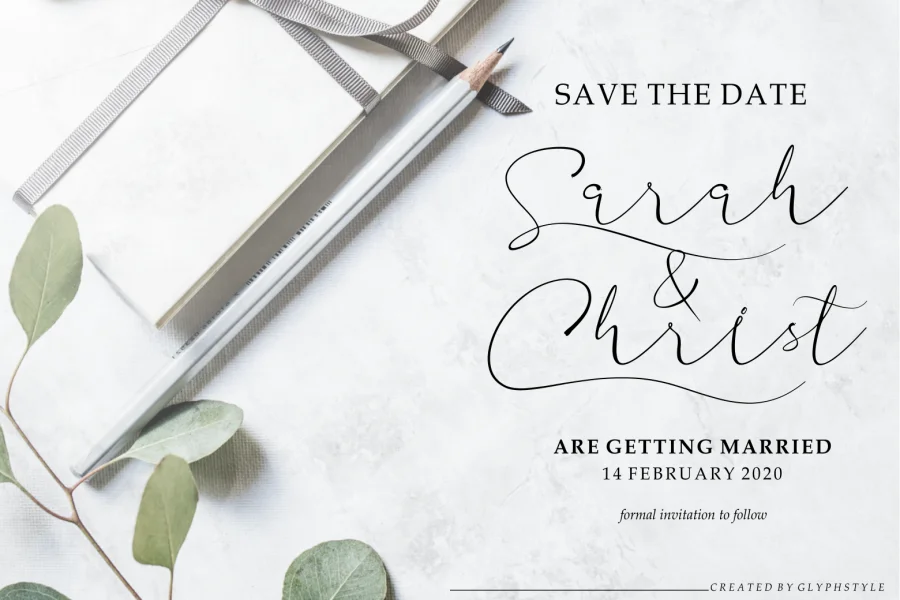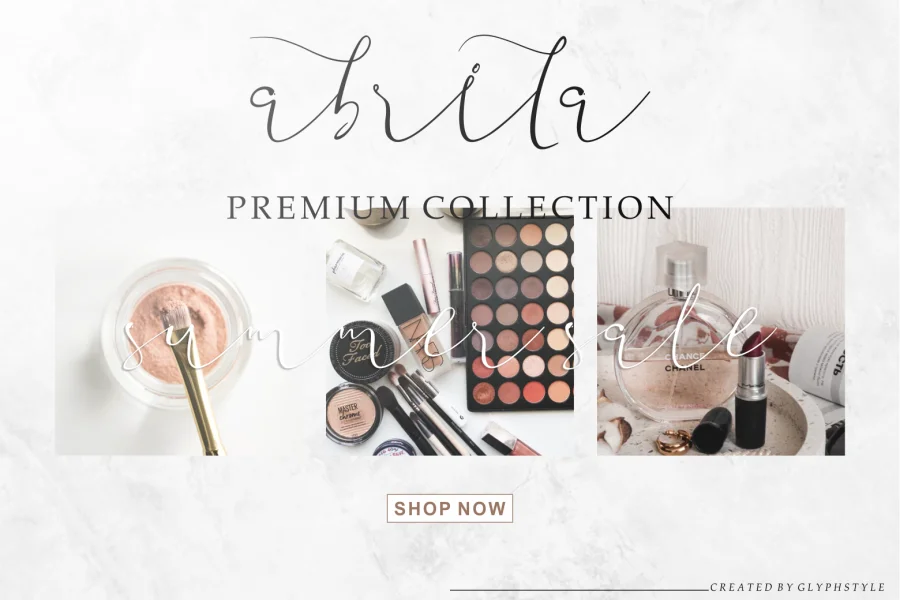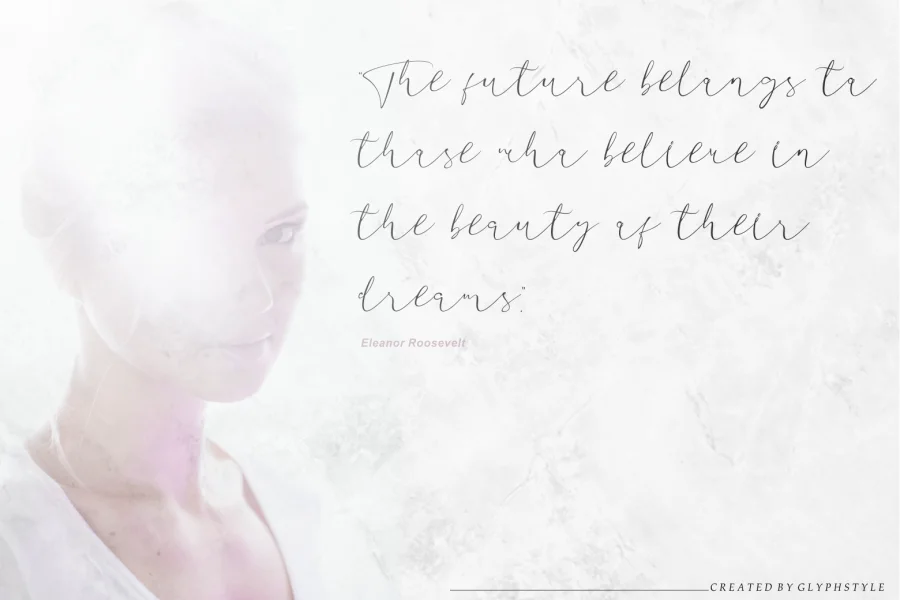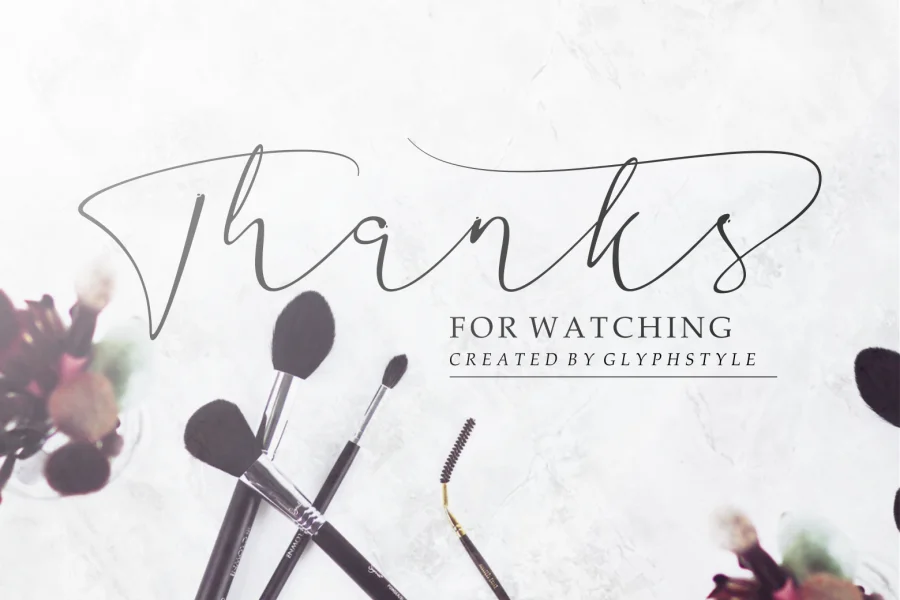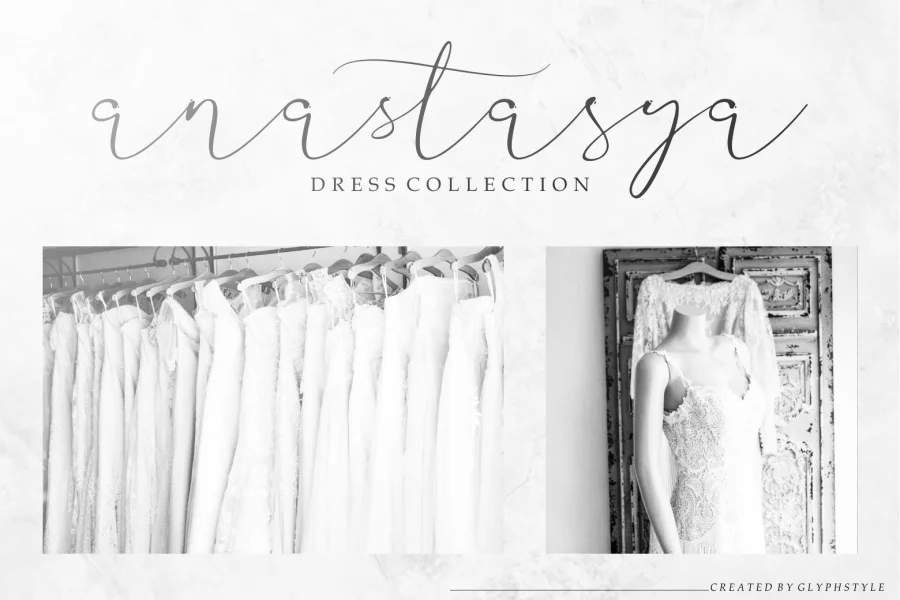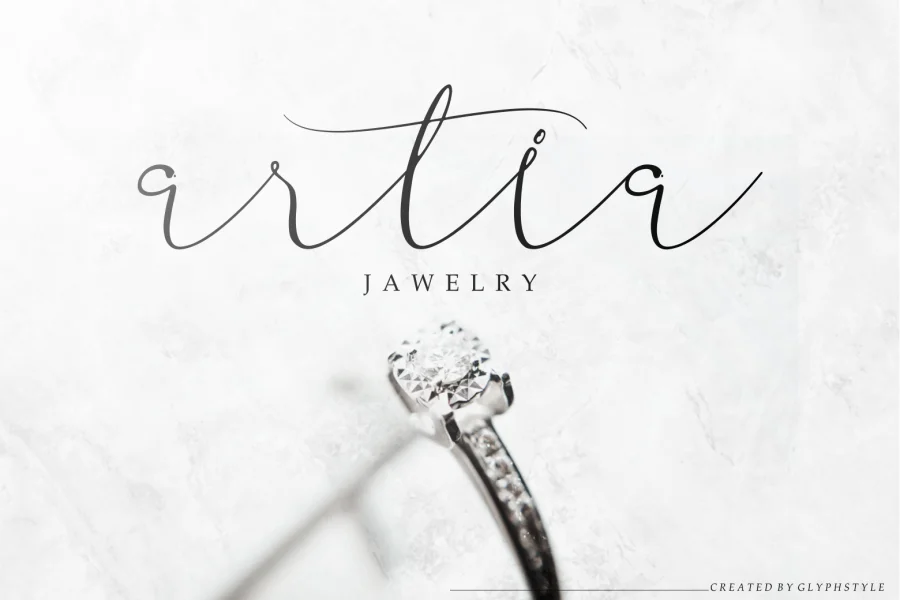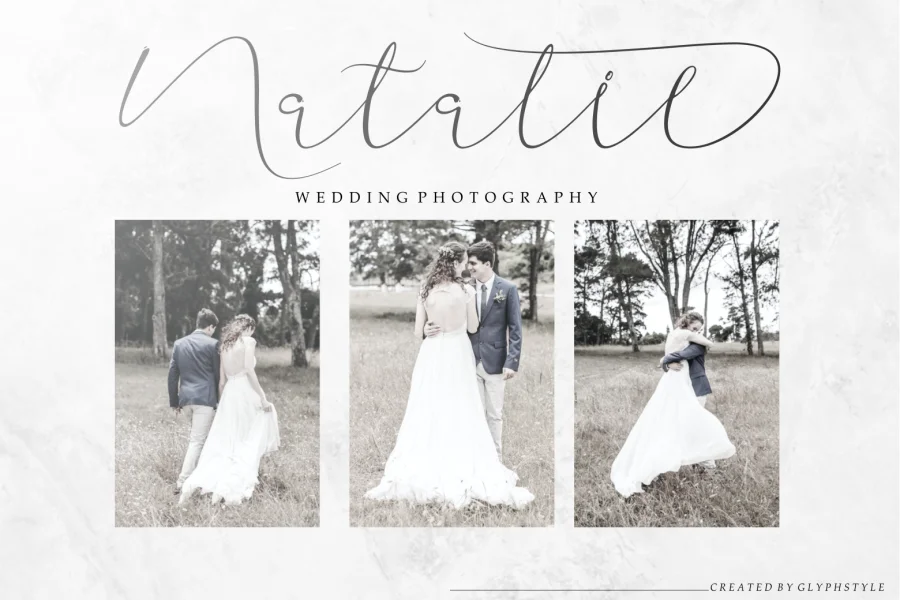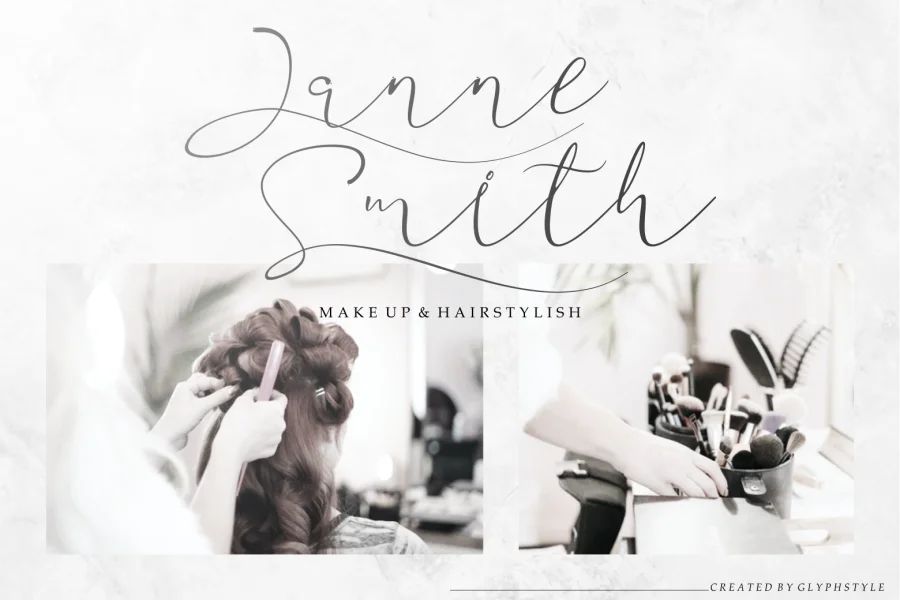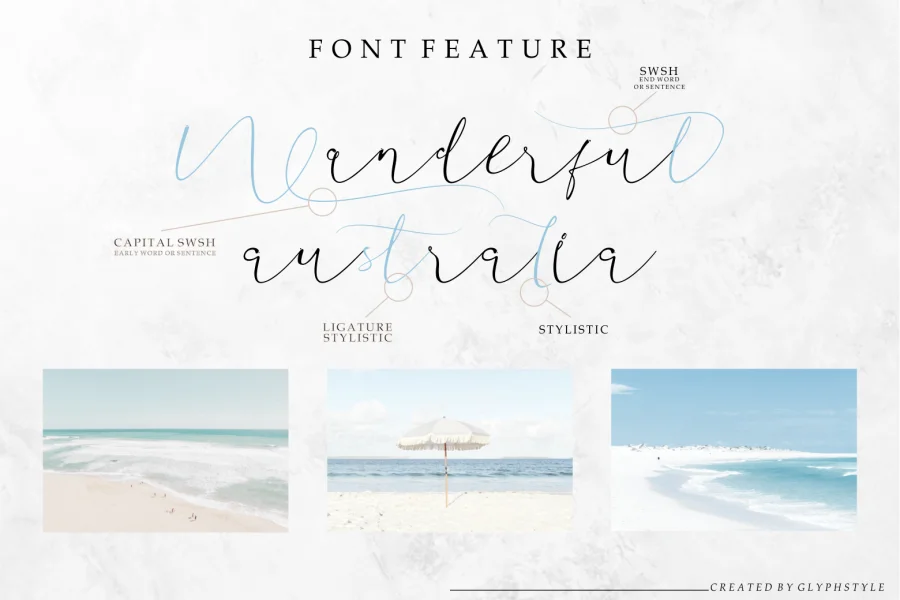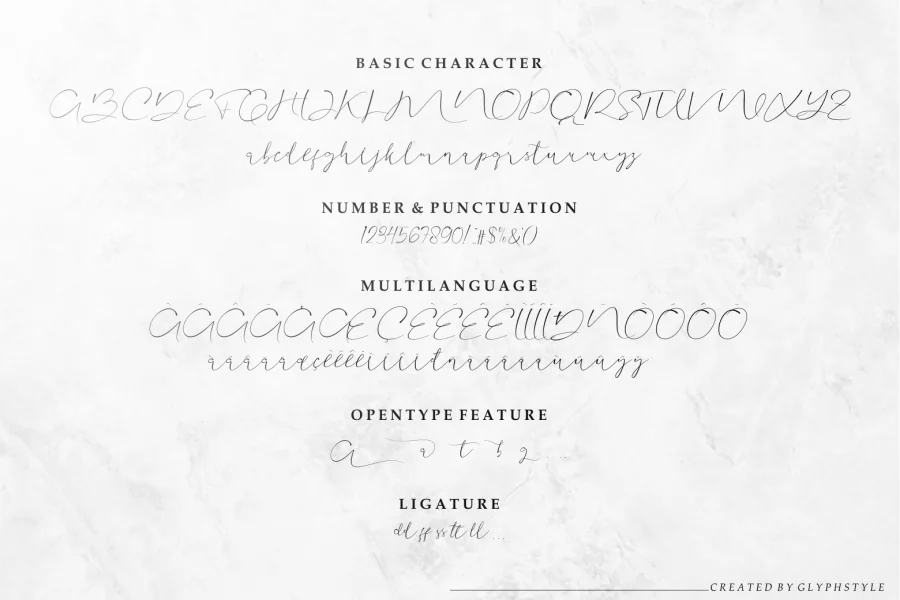
Aullia is a modern calligraphy writing style, with a consistency of very luxurious looking letters. Beautiful and luxurious fonts. This calligraphy font can be use for weddings, cosmetic product, photography logo, magazine, business cards, watermarks, etc.
Aullia is perfect for branding, logos, wedding designs, social media posts, advertisements, product packaging, product designs, labels, photography, watermarks, invitations, stationery, and any project that requires a sense of beauty calligraphy style.